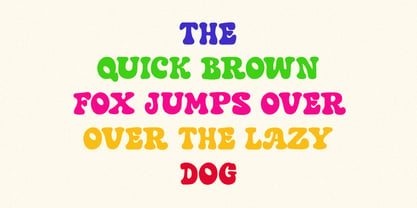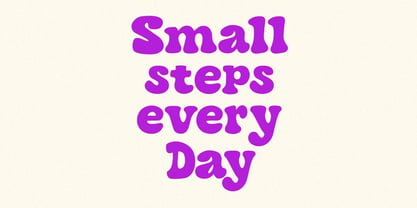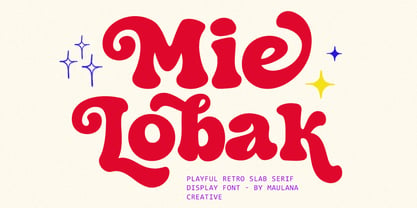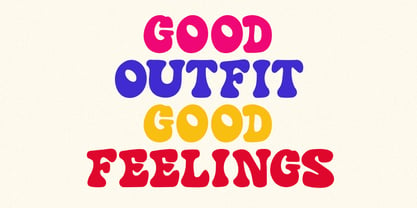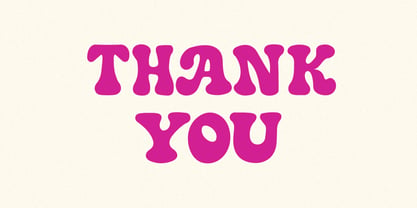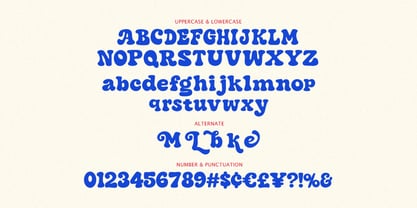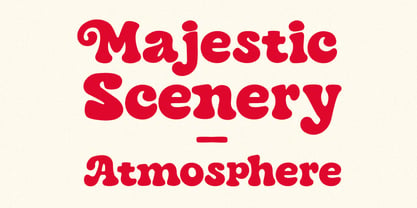
MC Mie Lobak
by Maulana Creative
The MC Mie Lobak Font Family was designed by Gilang Maulana and published by Maulana Creative. MC Mie Lobak contains 1 styles. More about this family
Step back into the groovier days with Mie Lobak, a playful retro slab serif font designed to bring a burst of nostalgic energy to your creative projects. Crafted by Maulana Creative, this font features thick, chunky strokes and whimsical curves that capture the fun and funk of the 1960s and 70s. Its bold, high-contrast personality makes it perfect for eye-catching headlines, vintage posters, trendy designs, and brand identities that don’t take themselves too seriously. With a full set of alternates and multilingual support, Mie Lobak offers the flexibility to create truly unique and majestic typography.
Designers: Gilang Maulana
Foundry: Maulana Creative